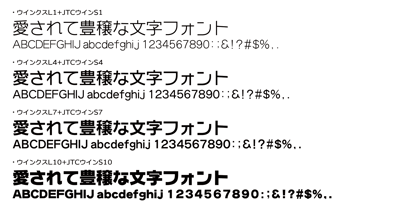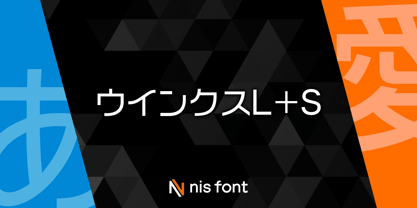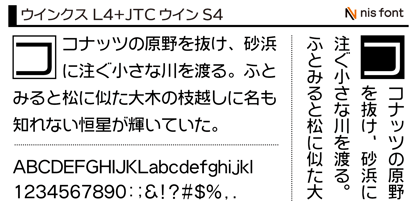
OT-NIS_WKL
by NIS Fonts
The OT-NIS_WKL Font Family was designed by and published by NIS Fonts. OT-NIS_WKL contains 4 styles and family package options. More about this family
Japanese fonts typically have larger kanji and smaller kana characters, resulting in misalignment both horizontally and vertically. The OT-NIS_WKL series was developed to solve this design challenge. It incorporates kana characters specifically designed to align perfectly both horizontally and vertically. This font is widely used for TV captions and POP displays. The family font offers four weight variations: S1, S4, S7, and S10, including this product. Note: This typeface supports the JIS2004 character set.